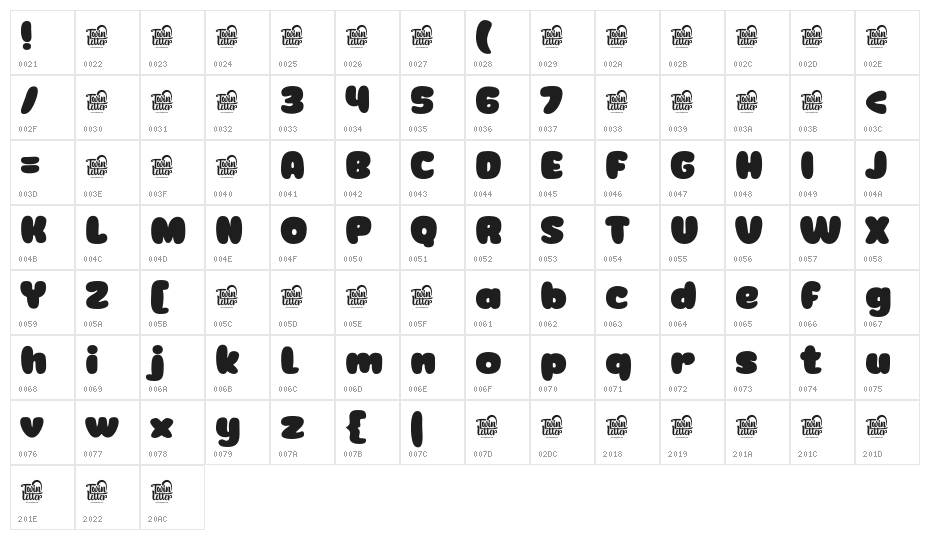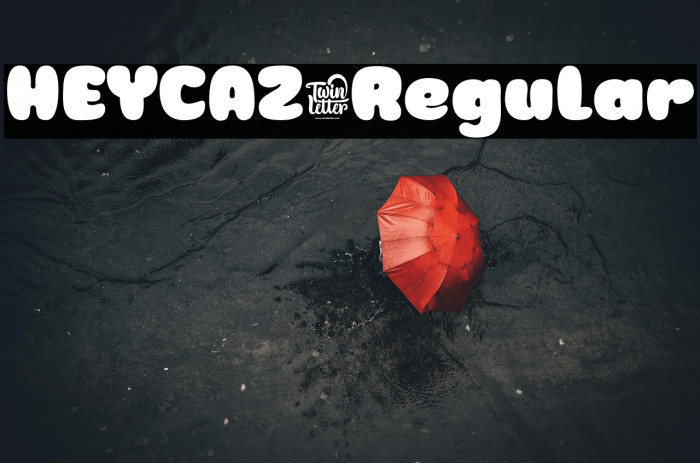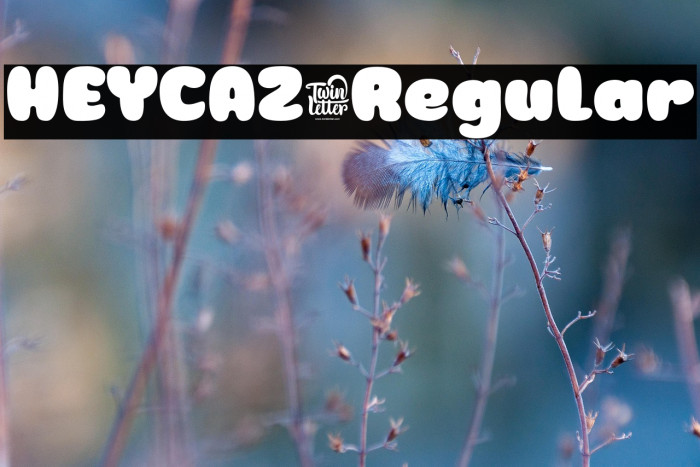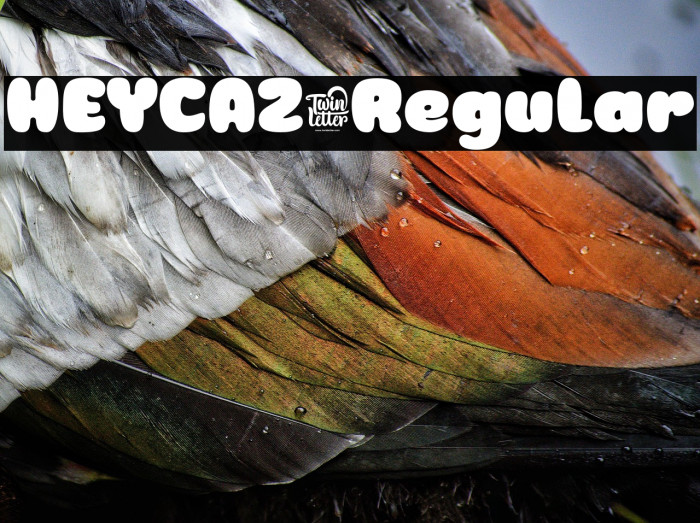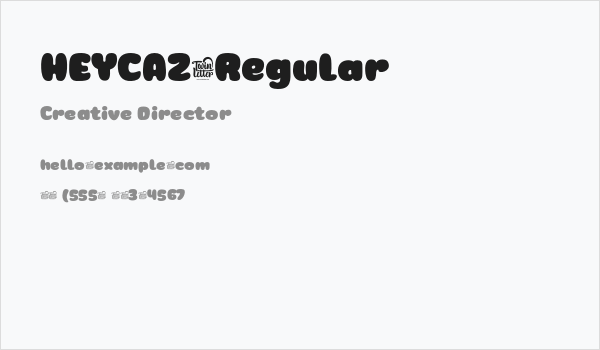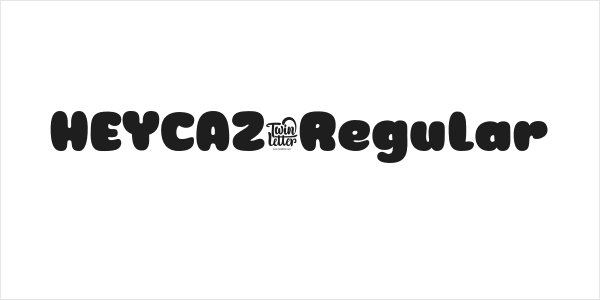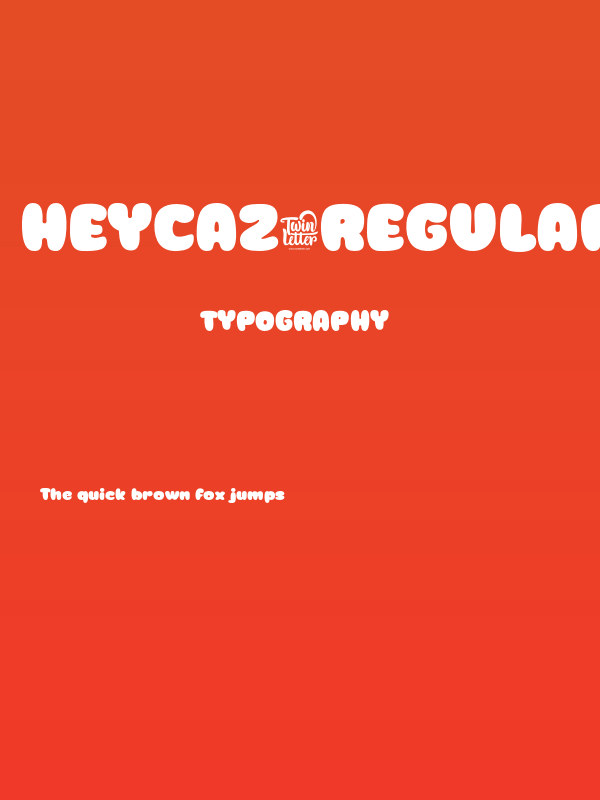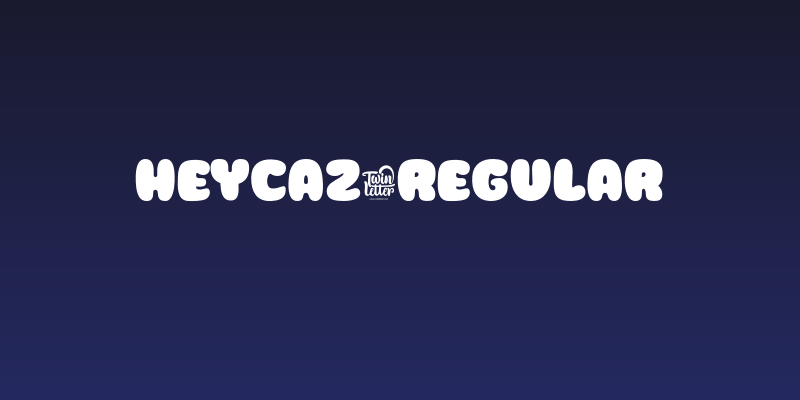
HEYCAZ-Regular Font
HEYCAZ-Regular Description
This font features a bold and playful design with rounded edges and a bubbly appearance. The characters are thick and uniform, creating a cohesive and friendly look. The uppercase and lowercase letters maintain a consistent style, with the lowercase letters slightly smaller but equally bold. The numbers and special characters follow the same design principles, ensuring a harmonious overall appearance. This font's unique style makes it stand out, offering a fun and approachable aesthetic.
| Proposed Projects | Ideal for children's books, playful branding, posters, and social media graphics. |